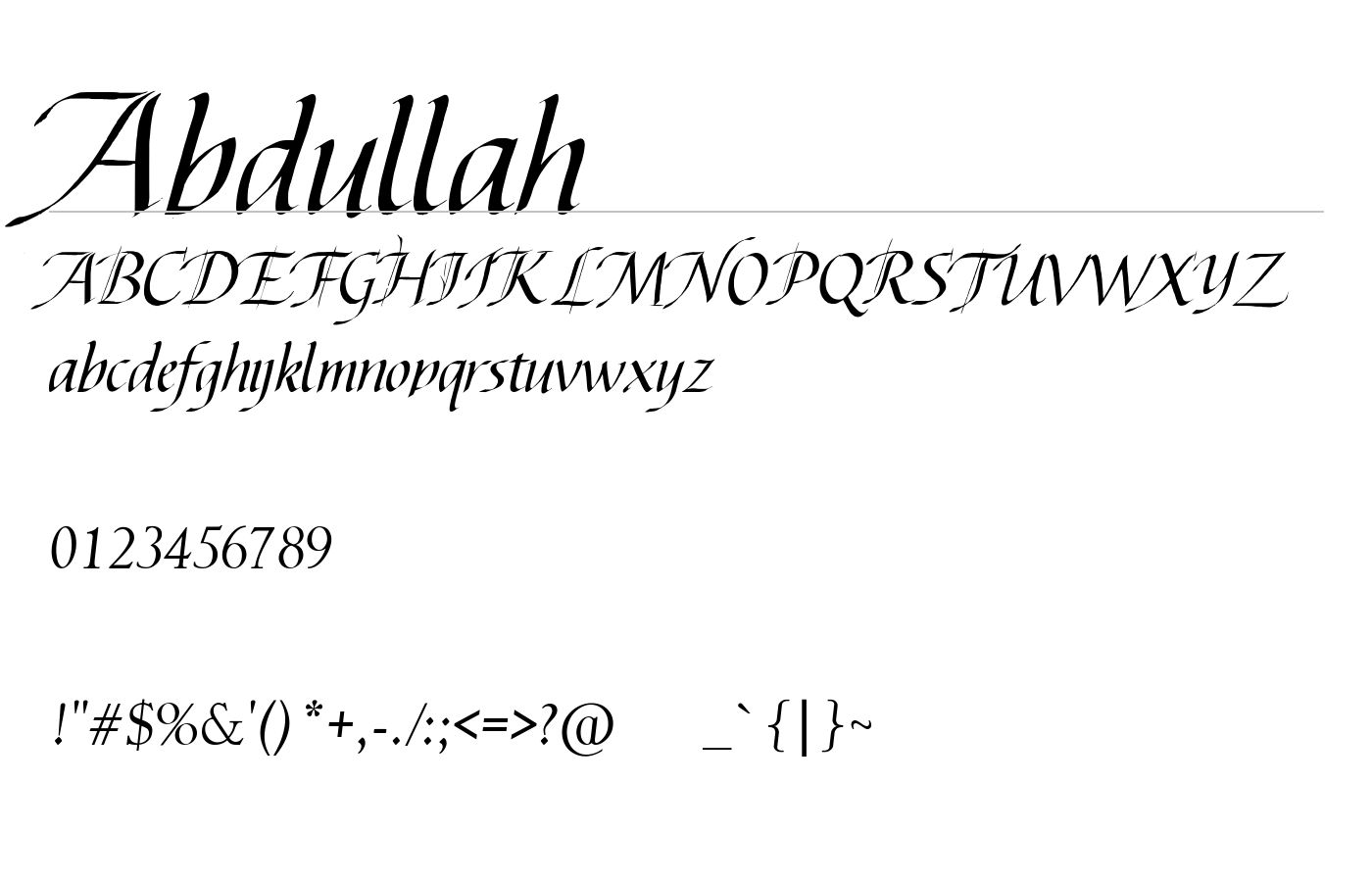
Abdullah Font is an elegant serif typeface with a calligraphic, italic style that features fine, flowing strokes with moderate contrast and delicate serifs. Its narrow, slightly condensed letterforms and graceful curves give it a sophisticated, classic feel, making it ideal for invitations, luxury branding, and editorial design where a refined, artistic look is desired. This font works beautifully in display uses where elegance and a touch of tradition are emphasized.
Abdullah Font
About Abdullah Font
| Font family | Abdullah Font |
| Designer | S.P.M.H |